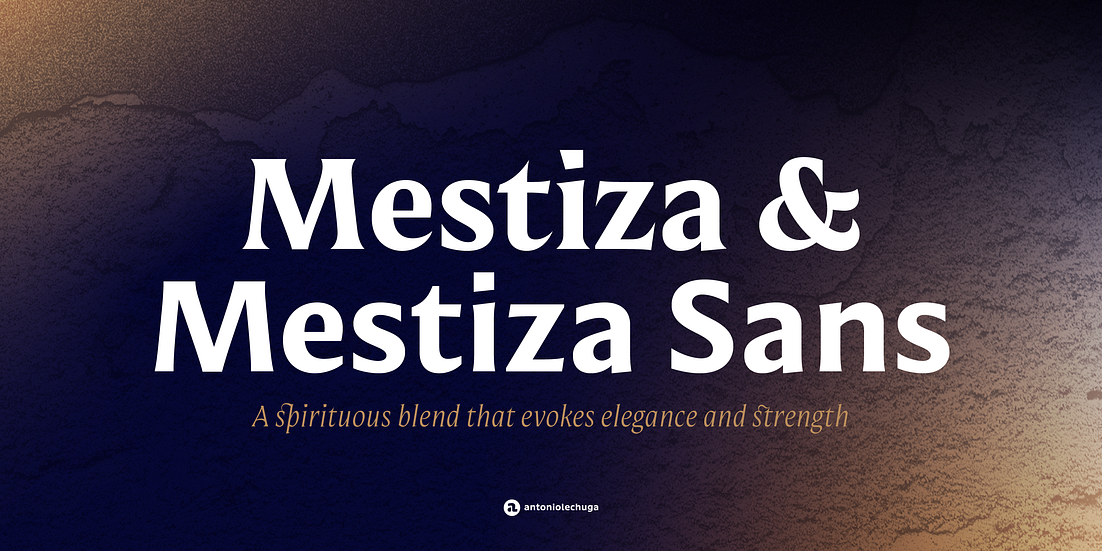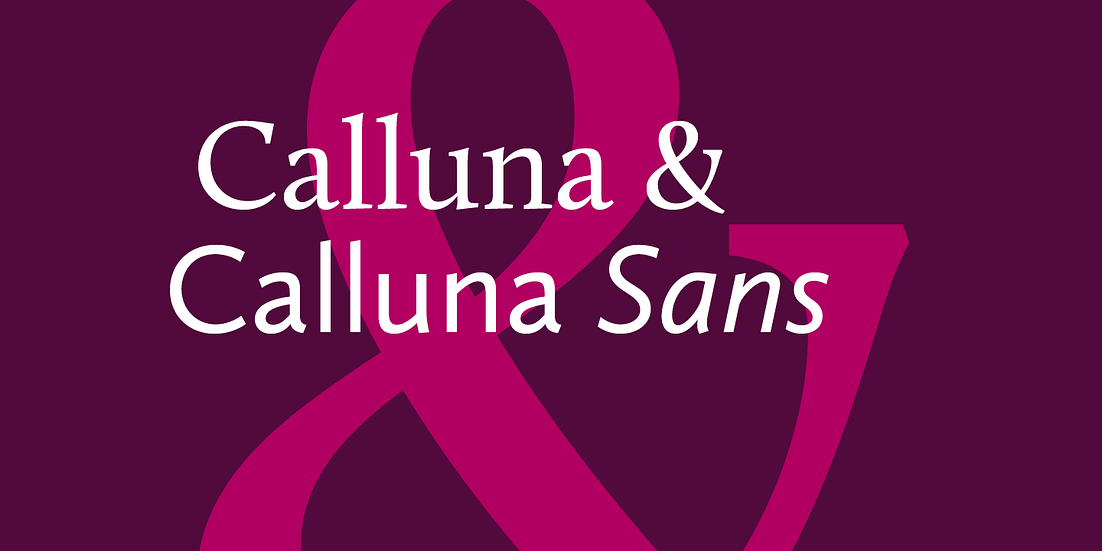
Guess What
Guess What … It’s a new handwritten font system, composed by four styles, Regular, Inline, Shadow and Papercut. Those styles can be easily overlapped for fun book covers, kids stuff, comics, playful branding and packaging… THAT’S what!
Gelica
Although obviously influenced by Cooper, it actually owes more to the lesser known Goudy Heavyface and Ludlow Black, particularly in the concave serifs. Gelica is friendly, but not overly cutesy. This is a display family, but is also comfortable at smaller sizes for longer copy.
Garet
Garet is a clean, modern geometric sans that appeared on our Best Fonts of 2021 list. With its high x-height, and soft letterforms, the Garet type family consists of 22 fonts ranging from thin to fat. In addition, all of them are combined into one variable font that will give you unlimited opportunities to explore and express without restrictions.
Gogh
Gogh is a gorgeous sans that appeared on our Best Fonts of 2020 list. Despite its distinctive character, it blends evenly in paragraphs without being overly distracting. The generous x-height, easily distinguishable glyph forms, and open terminals help make it super legible. Gogh is also available as a fully functional variable font, which gives unlimited opportunity to explore typography without the restrictions of predefined weights.
Bruna
Bruna by @antoniolechuga.studio is a versatile family with a pleasant taste that appeared as a Top-Tier Typeface in our Best Fonts of 2020 List!
An ideal typeface for text and display, these 16 fonts are just as fun to look at as they are an essential addition to your collection.
Mestiza & Mestiza Sans
The Mestiza family by @antoniolechuga.studio is a sharp display serif with striking curves and a gorgeous modern feel. Likewise, Mestiza Sans is a fantastic complementary family. Both were part of the Best Fonts of 2021 List.
These families blend handmade and contemporary styles in a spirited mix that evokes elegance and strength.
Beachwood
Beachwood by Swelltype is a distinctive “shotgun” style that was popular on Los Angeles street signs produced over sixty years ago. This 81-font family faithfully captures the extreme range of widths & weights of the vintage signs!
Calluna + Calluna Sans
Calluna and Calluna Sans is an 18-font collection created by Exljbris. Calluna is the perfect balance between robustness and function, while also being a refined display font.
Freigeist (and 4 more)
John Roshell
Creator of fonts for Swell Type & Comicraft
John Roshell is an award-winning artist who has designed logos from Angry Birds to Black Panther and Daredevil. Building on decades of experience as a type designer for Comicraft, John’s Swell Type collection offers a friendly California vibe. His entire Fontspring library is currently 50% off.